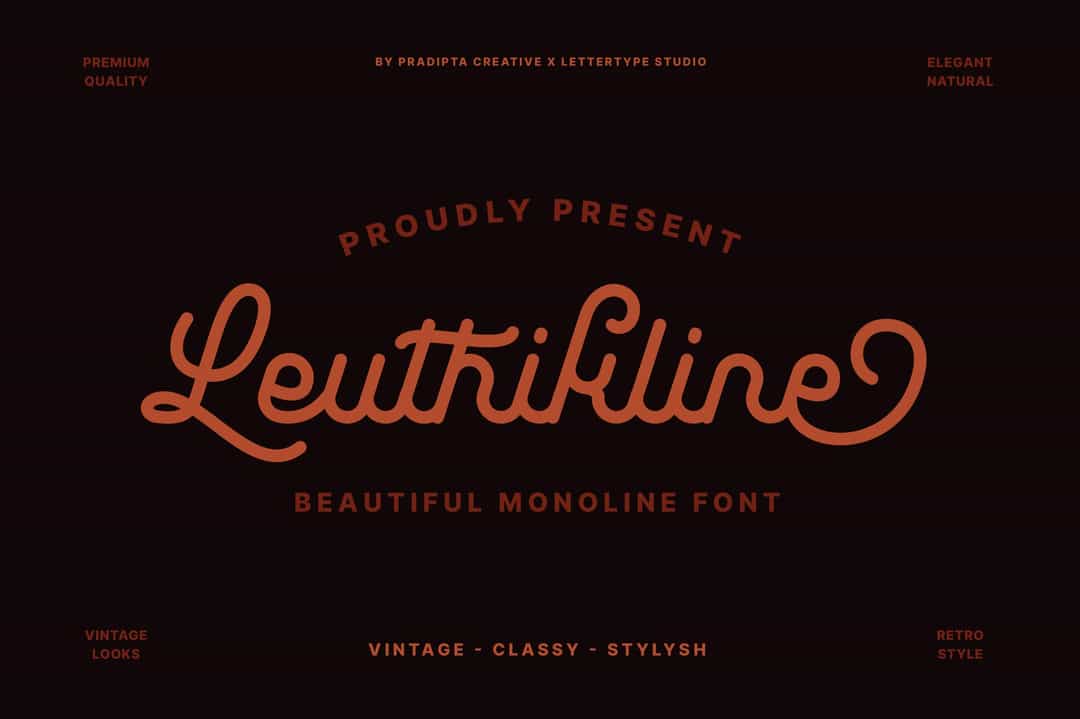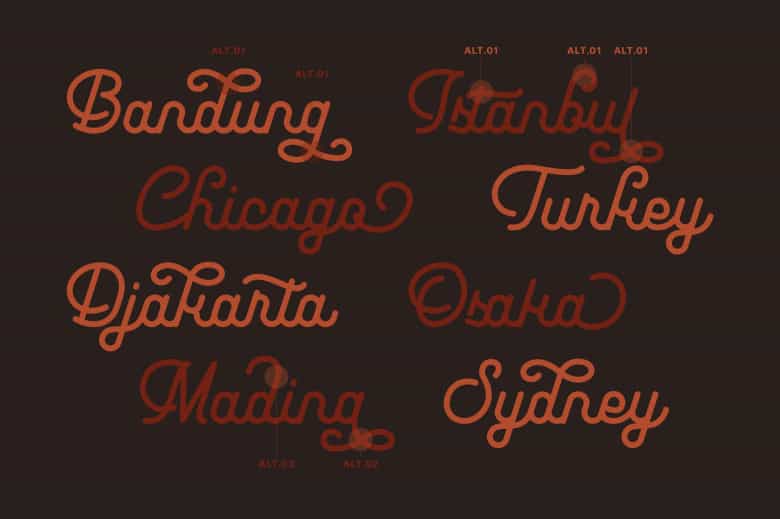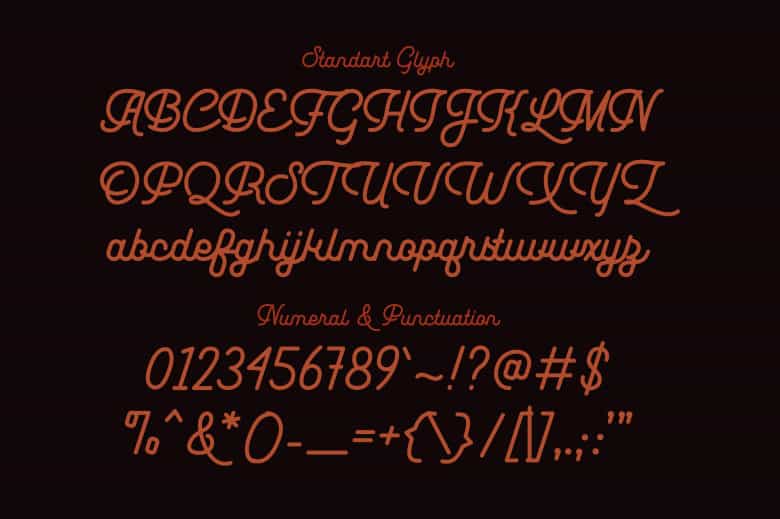
Leuthikline is an elegant monoline script font designed specifically to meet branding, logo design, apparel design, signage signs, posters and wedding invitation needs. Our goal was to design an easily read font that could contribute to making any project beautiful and flawless.